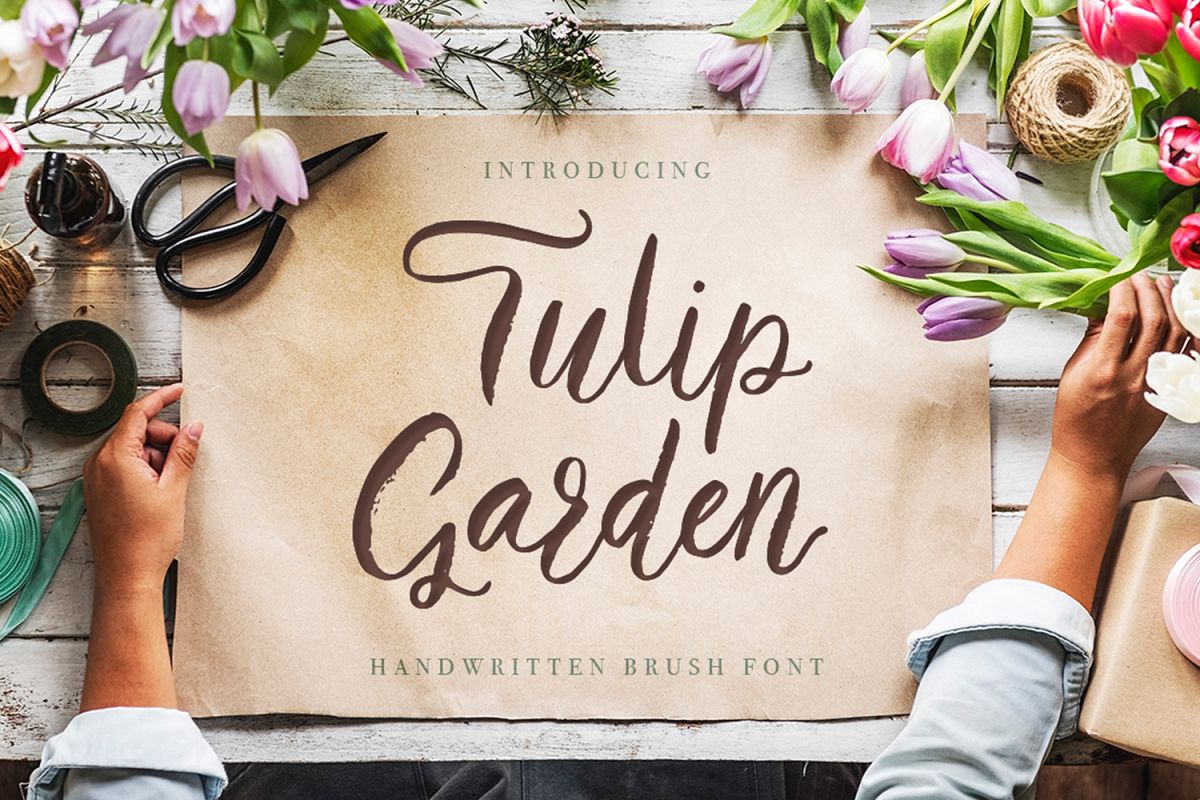
Tulip garden font
Thanks for checking out Tulip Garden Font! Its playful textured handwritten font with lots of ligatures and alternative symbols for the whole alphabet. Tulip Garden was created in order to repeat the peculiarities of hand-writing, where each letter is special where combinations of letters are unique and the work of a human feels. Open type features include set of alternate uppercase & alternate lowercase letters, a lot of ligatures and some contextual alternatives (initial and final glyphs).